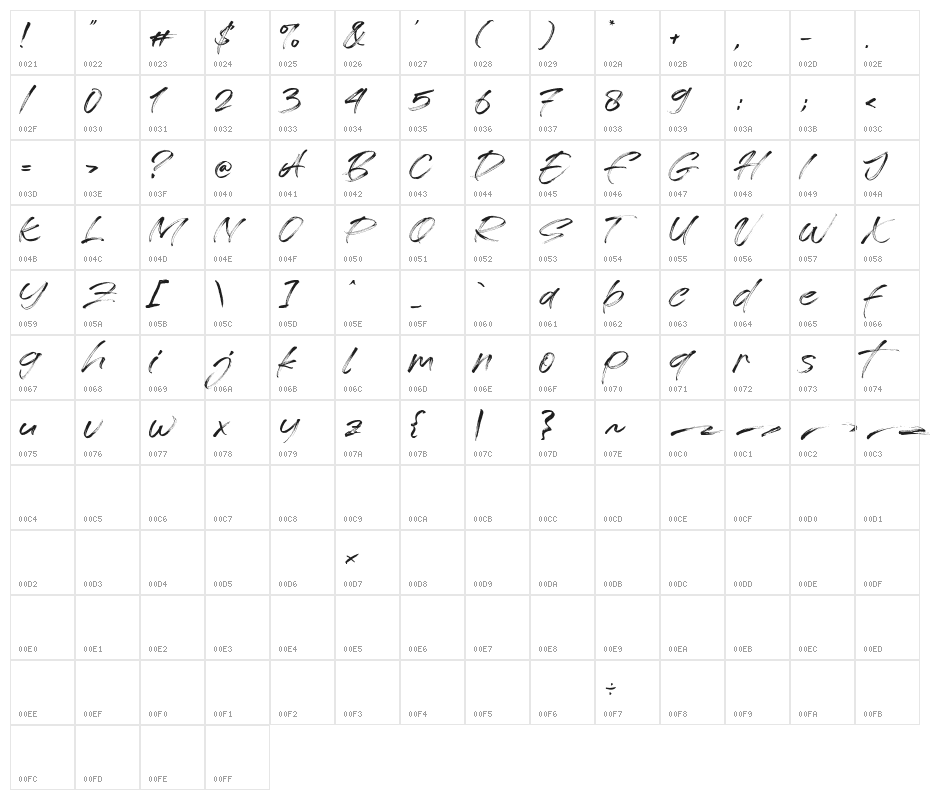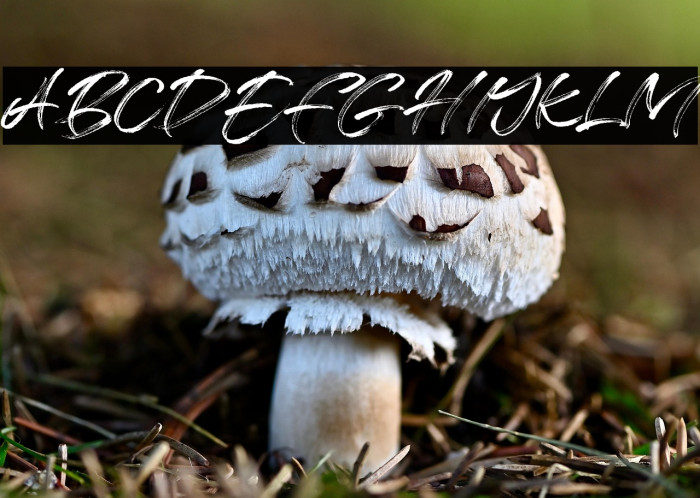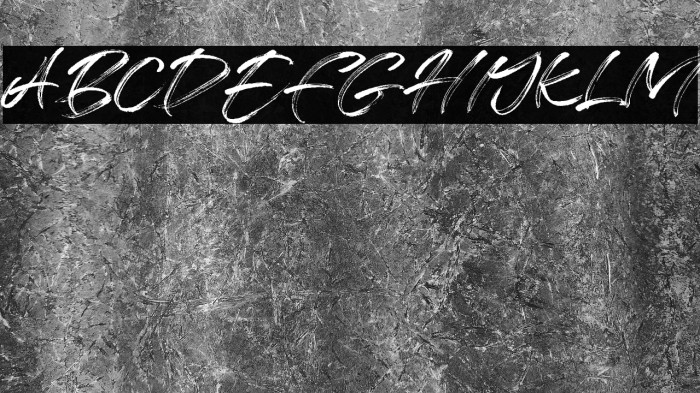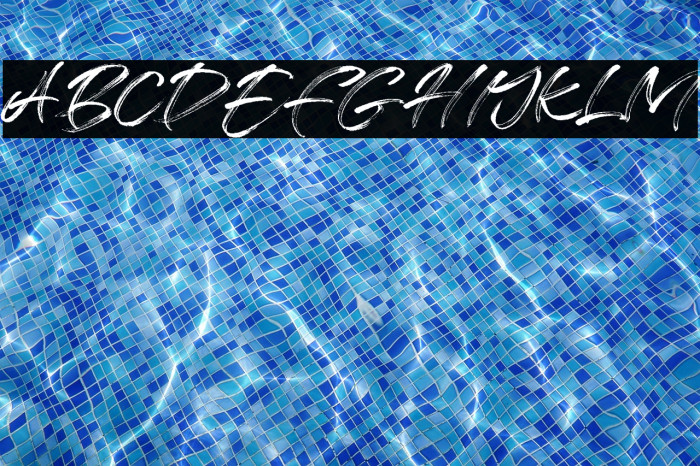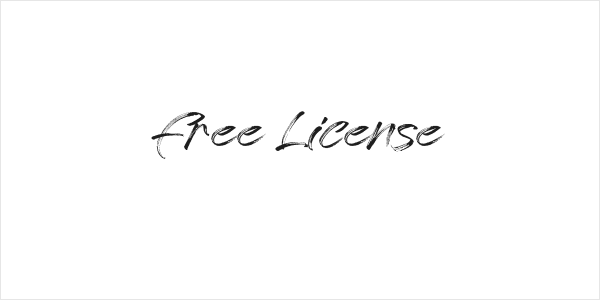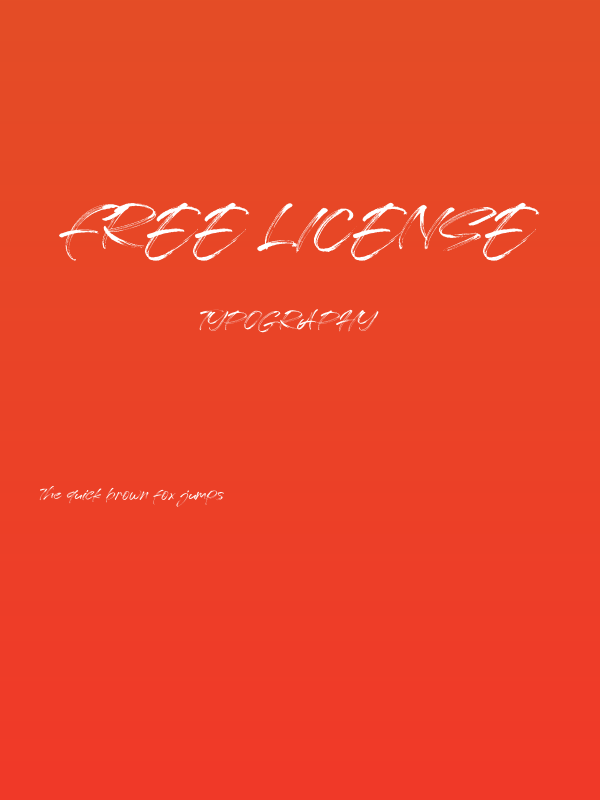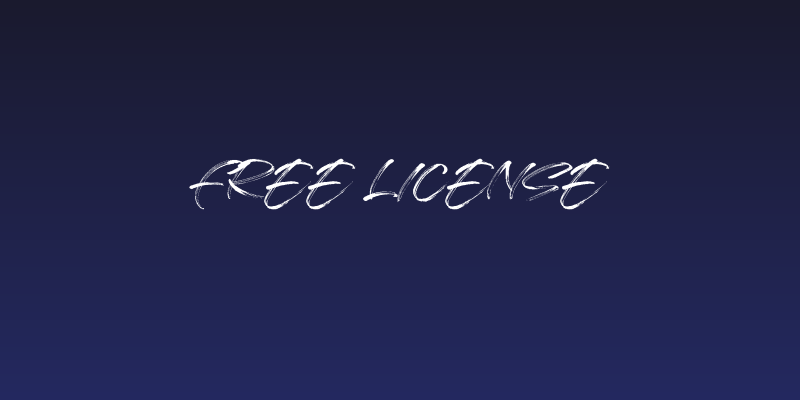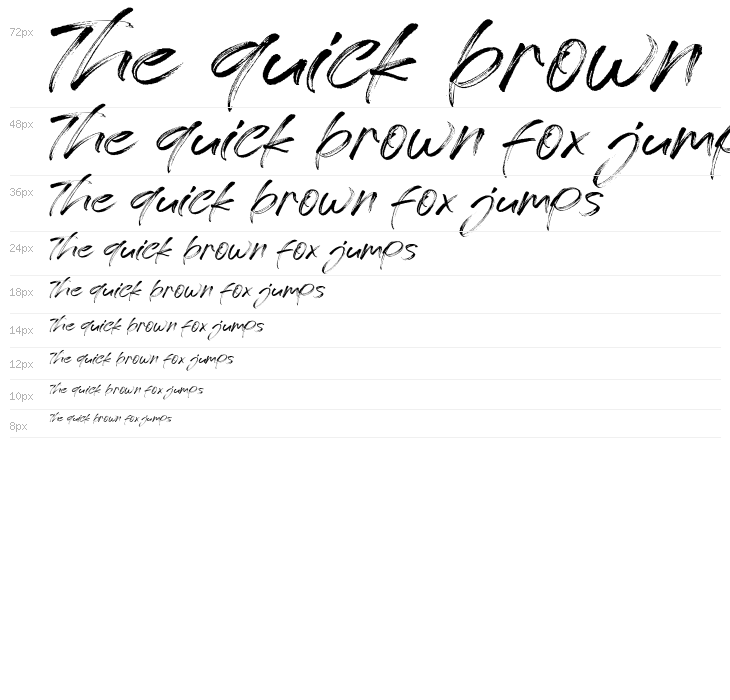
Free License Font
Free License Description
This font exhibits a dynamic and expressive handwritten style, characterized by bold, sweeping strokes that convey a sense of energy and movement. The letters are crafted with a brush-like texture, giving them a textured and artistic appearance. The uppercase and lowercase letters maintain a consistent flow, with some variations in stroke thickness that add to the font's lively character. The numerals and special characters are designed with the same energetic flair, ensuring a cohesive look across all elements. This font is ideal for projects that require a personal touch or a creative, informal aesthetic.
| Use Case | Logos, Headlines, Creative projects |
| Proposed Projects | Perfect for creative projects such as greeting cards, posters, branding, and social media graphics. |